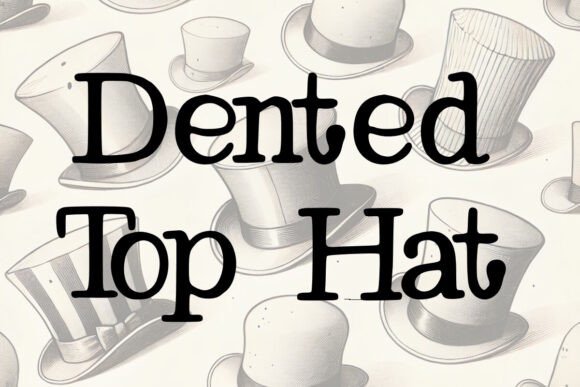
Dented Top Hat Font: Elevate Your Designs with Elegant Playfulness
In the world of typography, fonts play a crucial role in conveying the tone and personality of a design. Whether you’re working on a luxury brand’s logo, a wedding invitation, or a packaging design, the right font can make all the difference. If you’re looking for a font that exudes elegance with a playful twist, look no further than the Dented Top Hat font. In this article, we’ll dive into the world of Dented Top Hat, exploring its unique characteristics, and how it can elevate your designs.
What is Dented Top Hat Font?
Dented Top Hat is a charming handwritten serif font that combines the sophistication of classic serif typography with a playful, whimsical touch. Its slightly uneven strokes and classic serif style evoke the image of a posh gentleman with impeccable tasteβbut perhaps a scuffed shoe or a dented top hat. This font is perfect for designers who want to add a touch of elegance and lighthearted charm to their designs.
Unique Characteristics of Dented Top Hat Font
So, what sets Dented Top Hat apart from other fonts? Here are a few of its unique characteristics:
- Handwritten serif style: Dented Top Hat boasts a beautiful, handwritten serif style that adds a touch of warmth and personality to any design.
- Slightly uneven strokes: The font’s slightly uneven strokes give it a playful, organic feel that’s perfect for designs that need a bit of whimsy.
- Classic serif style: Despite its playful twist, Dented Top Hat still maintains a classic serif style that exudes elegance and sophistication.
Use Cases for Dented Top Hat Font
Dented Top Hat is a versatile font that can be used in a variety of design applications. Here are a few ideas to get you started:
- Logo design: Dented Top Hat is perfect for luxury brands that want to convey a sense of sophistication and elegance.
- Wedding invitations: The font’s playful, whimsical touch makes it ideal for wedding invitations and other celebratory designs.
- Packaging design: Dented Top Hat can add a touch of elegance and sophistication to packaging designs, making it perfect for high-end products.
- Advertising: The font’s unique blend of elegance and playfulness makes it perfect for ad campaigns that want to stand out from the crowd.
Benefits of Using Dented Top Hat Font
So, why should you choose Dented Top Hat for your next design project? Here are a few benefits of using this charming font:
- Unique personality: Dented Top Hat has a unique personality that sets it apart from other fonts.
- Elegant and playful: The font’s combination of elegance and playfulness makes it perfect for designs that need a bit of whimsy.
- Versatile: Dented Top Hat can be used in a variety of design applications, from logo design to packaging design.
- Easy to read: Despite its playful twist, Dented Top Hat is still easy to read, making it perfect for body text and headlines.
How to Use Dented Top Hat Font in Your Designs
Ready to give Dented Top Hat a try? Here are a few tips for incorporating this charming font into your designs:
- Pair it with a sans-serif font: Pair Dented Top Hat with a sans-serif font for a classic, elegant look.
- Use it as a headline font: Dented Top Hat is perfect for headlines and titles, where its playful, whimsical touch can shine.
- Add a pop of color: Use Dented Top Hat in a bold, bright color to add a pop of personality to your design.
In conclusion, Dented Top Hat is a charming handwritten serif font that exudes elegance with a playful twist. Its unique characteristics, versatility, and ease of use make it perfect for a variety of design applications. Whether you’re working on a luxury brand’s logo, a wedding invitation, or a packaging design, Dented Top Hat is sure to elevate your designs and add a touch of sophistication and whimsy. So why not give it a try and see the difference it can make in your designs?